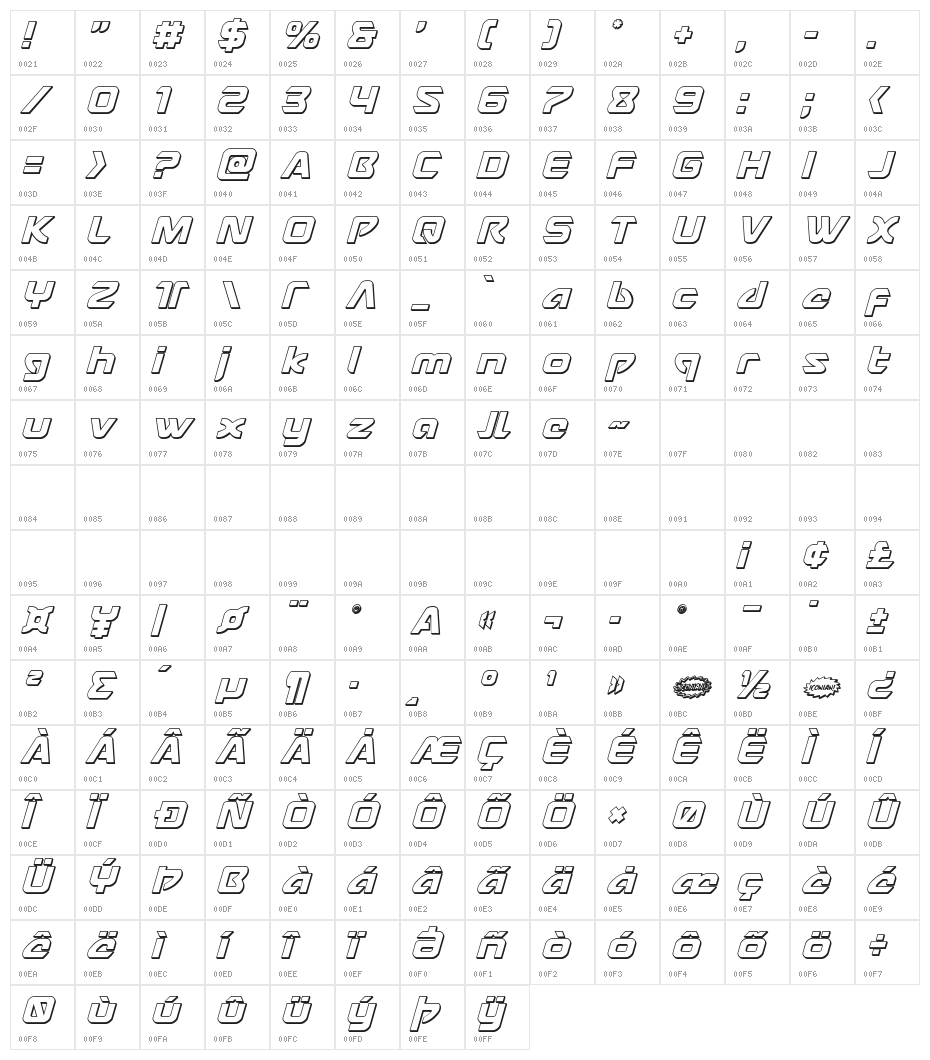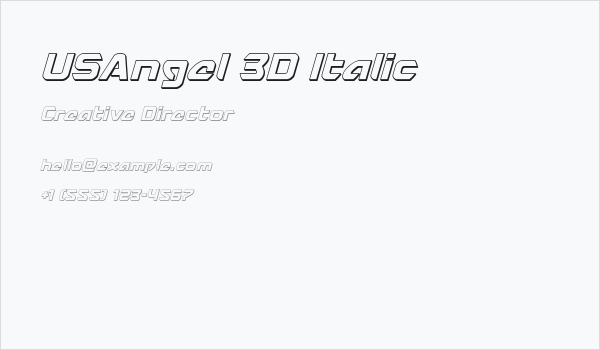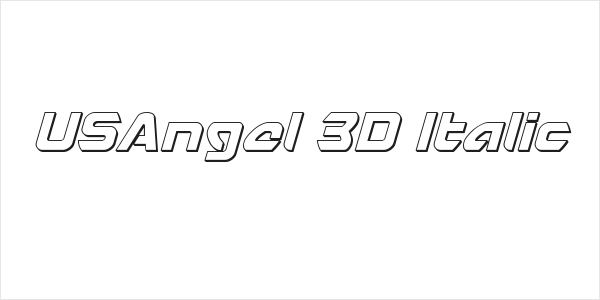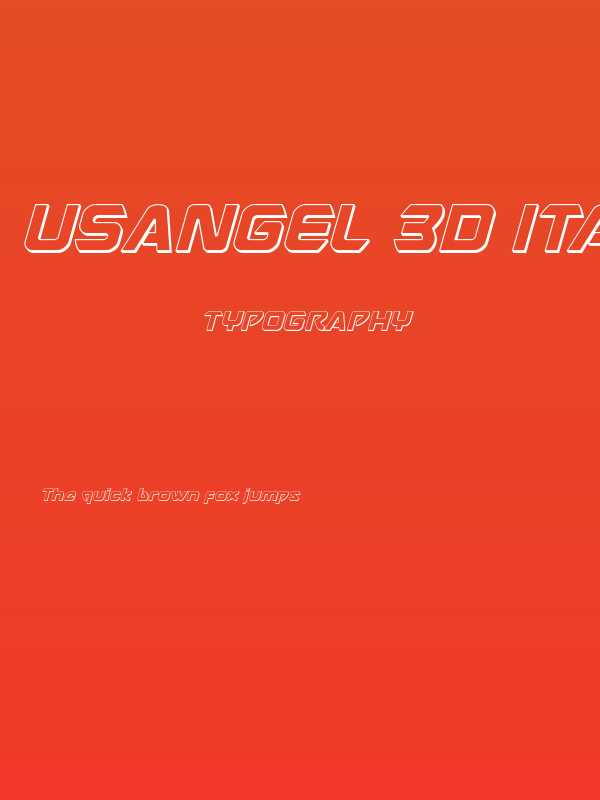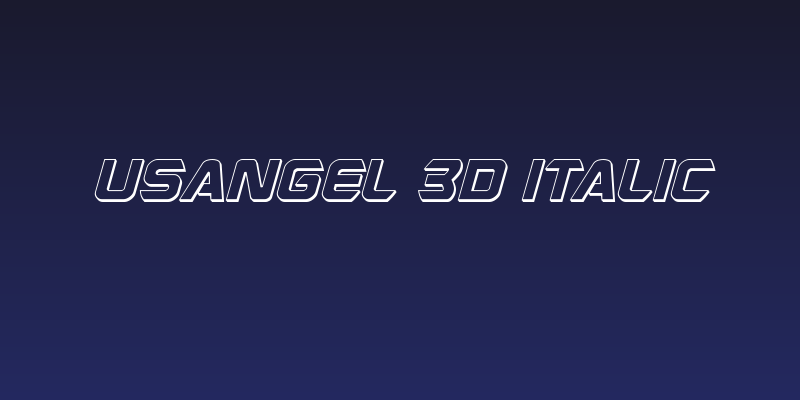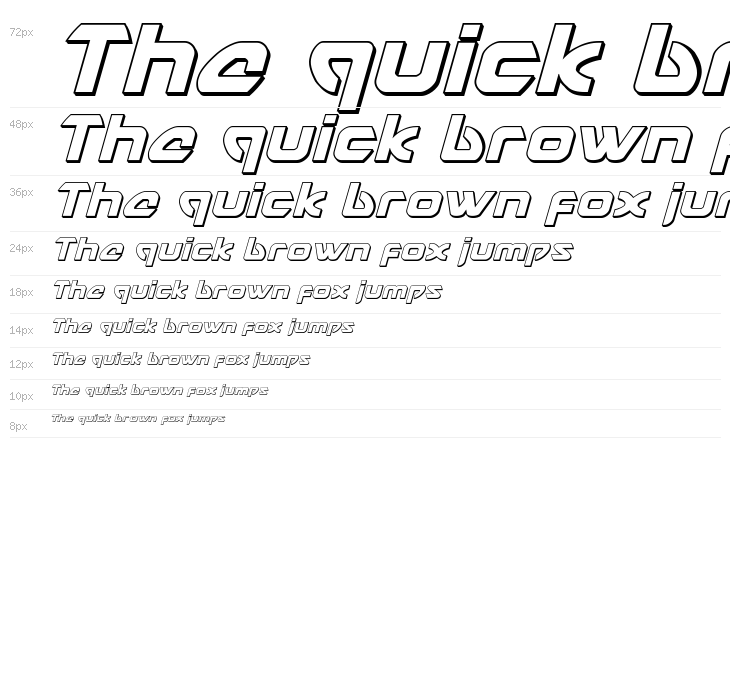
USAngel 3D Italic Font
USAngel 3D Italic Description
This font features a bold, three-dimensional appearance with a distinct italic slant, giving it a dynamic and futuristic feel. The characters are outlined, creating a hollow effect that enhances the 3D illusion. Each letter and number is designed with sharp angles and clean lines, contributing to its modern and edgy aesthetic. The uppercase and lowercase letters maintain a consistent style, ensuring uniformity across the typeface. The special characters are crafted with the same attention to detail, making them seamlessly integrate with the rest of the font. This font's unique style makes it stand out, suitable for projects that require a bold and eye-catching design.
| Proposed Projects | Ideal for futuristic designs, video game titles, tech branding, and posters. |